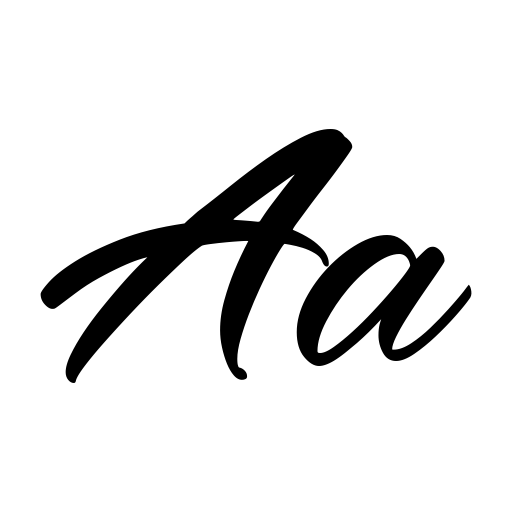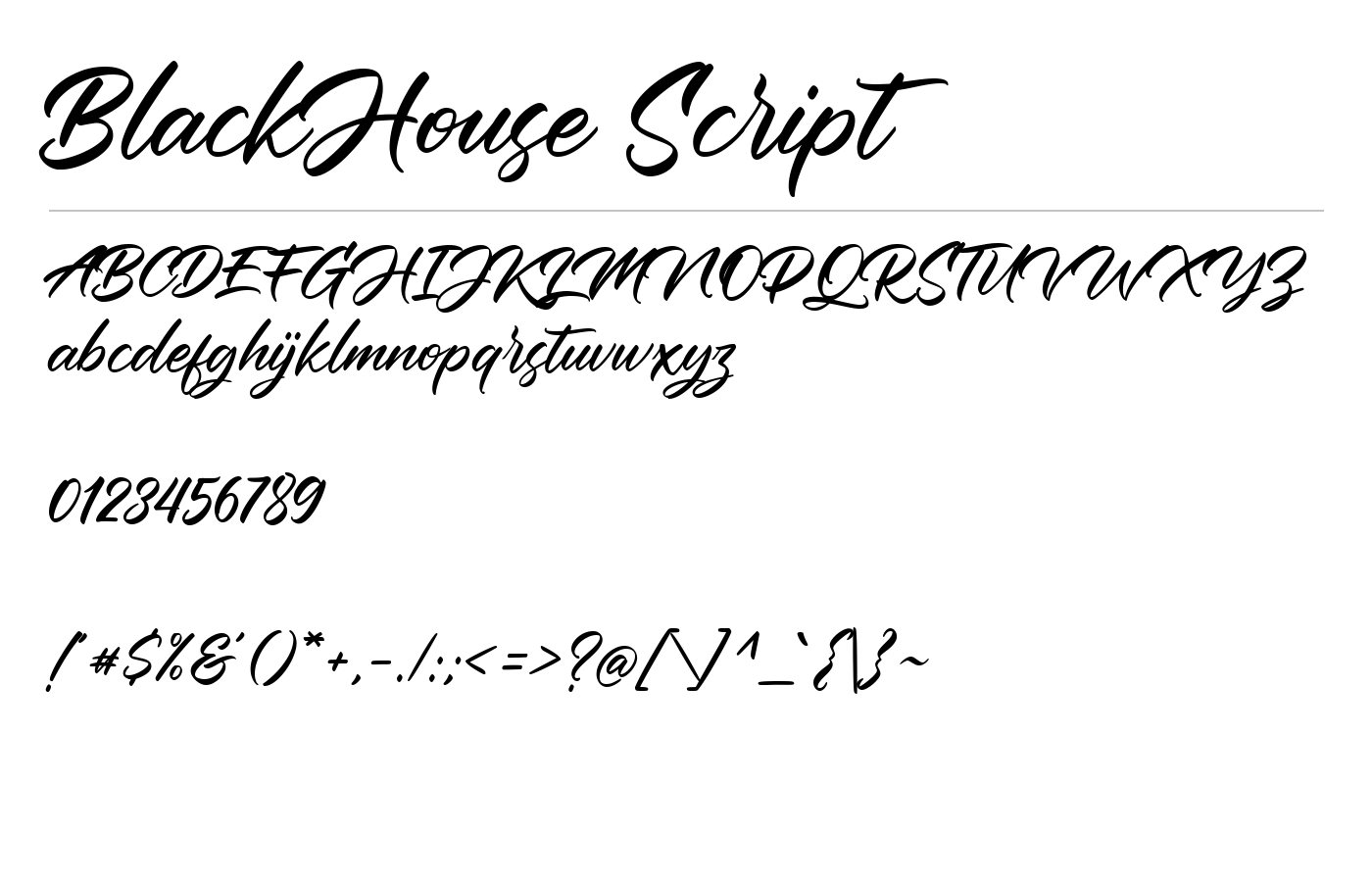
BlackHouse Script is an elegant and flowing script font with a bold yet graceful character. Its smooth, connected letterforms and moderate contrast give it a stylish and modern feel, perfect for branding, invitations, and editorial design where a touch of sophistication is desired. This font shines in headlines and logos, adding personality and a hand-crafted charm to any creative project.
BlackHouse Script Font
About BlackHouse Script Font
| Font family | BlackHouse Script Font |
| Designer | Typefactory.co |